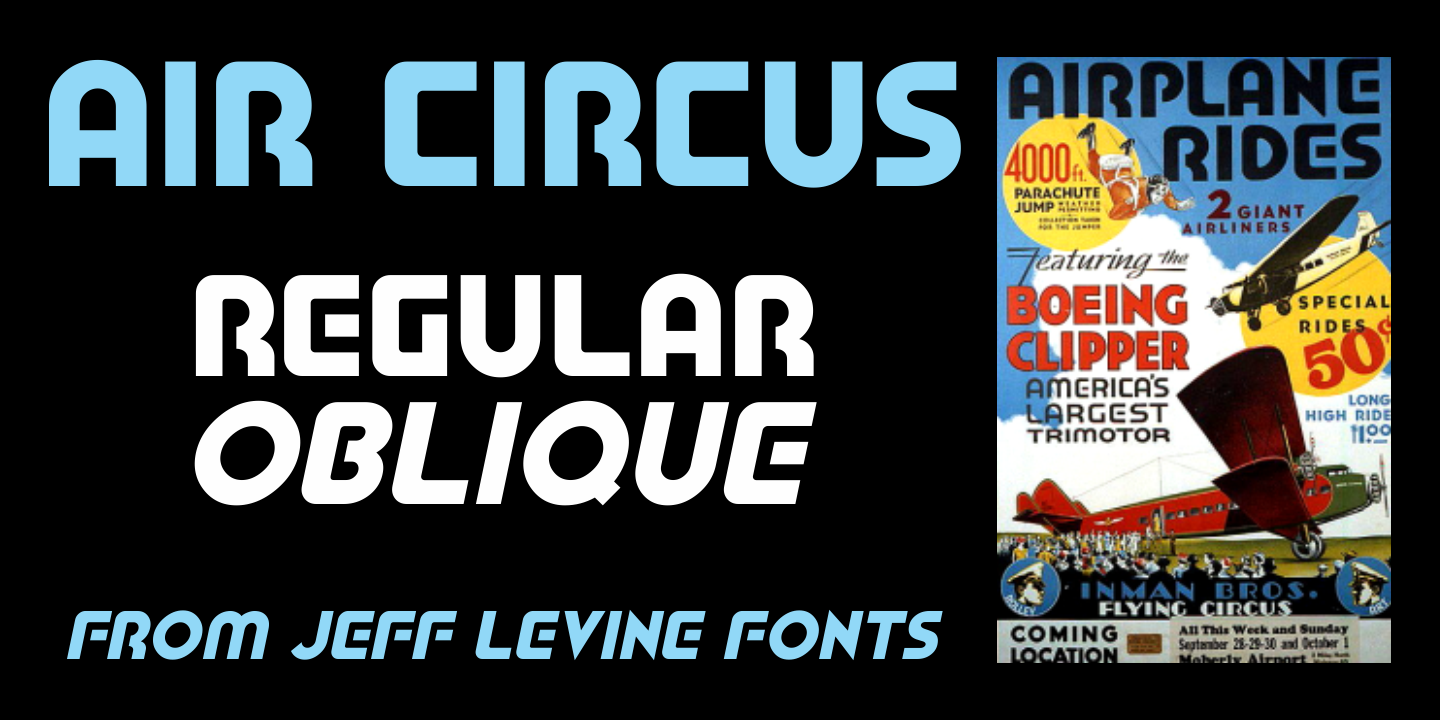
Air Circus JNL Font is a dynamic and spirited display typeface that perfectly captures the excitement and wonder of vintage circuses, carnivals, and fairgrounds. Its lively, often decorative style makes it an exceptional choice for projects aiming to evoke nostalgia, entertainment, and a playful sense of spectacle. Imagine it gracing retro poster designs, vibrant event invitations, fun branding for amusement parks or family entertainment, playful children's book titles, unique merchandise, or whimsical signage. This font excels at conveying joy, energy, and a distinctive, eye-catching charm. It’s particularly effective for brands and creatives who want their message to stand out with an unmistakable flair for the dramatic and a lighthearted, inviting personality.
What makes Air Circus JNL Font truly exciting is its ability to instantly transport viewers to a world of spectacle and delight. It often features bold, rounded forms, sometimes with inline details or decorative flourishes, that evoke the grandiosity and hand-painted artistry of classic entertainment posters. This font isn't just about displaying text; it's about creating an atmosphere of fun and adventure, injecting your designs with a sense of vibrant energy and nostalgic charm. It has a powerful ability to feel both incredibly lively and surprisingly versatile, making it an ideal tool for designers who want their work to convey excitement, entertainment, and a truly memorable visual impact. Air Circus JNL Font empowers brands and creatives to project an image of joyful exuberance and classic showmanship.
The Air Circus JNL Font family often focuses on delivering its unique display style with optimal impact and character. You'll typically find it available in a strong, singular weight that best showcases its distinctive design elements and playful nature. While it might not feature a wide range of weights or conventional italic styles, some versions could include stylistic alternatives for certain characters or ligatures that further enhance its decorative and whimsical appearance, allowing for even more customized typographic compositions. The comprehensive character set generally covers standard Latin characters, numbers, and a selection of punctuation, ensuring that Air Circus JNL Font Free Download is suitable for a wide array of creative and commercial applications where a bold and distinctive statement is desired. Its memorable and joyful presence ensures that any project featuring Air Circus JNL Font will leave a strong, lasting impression.